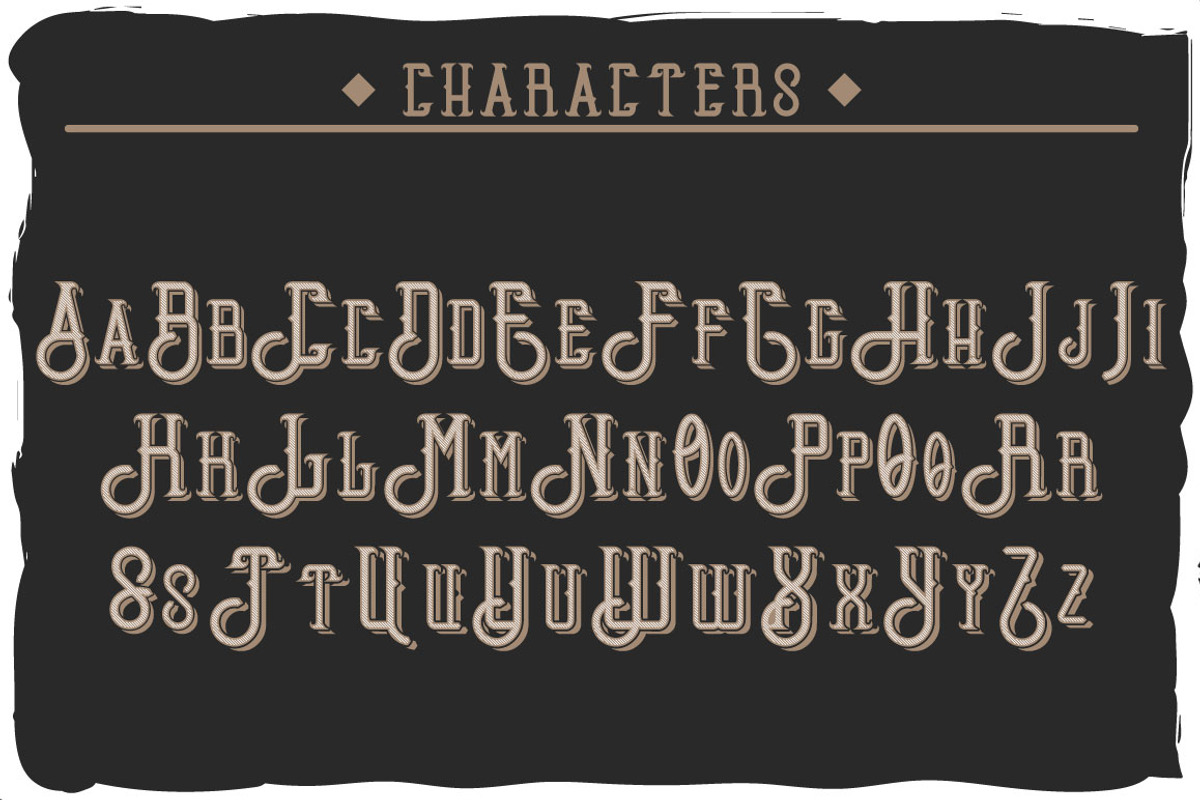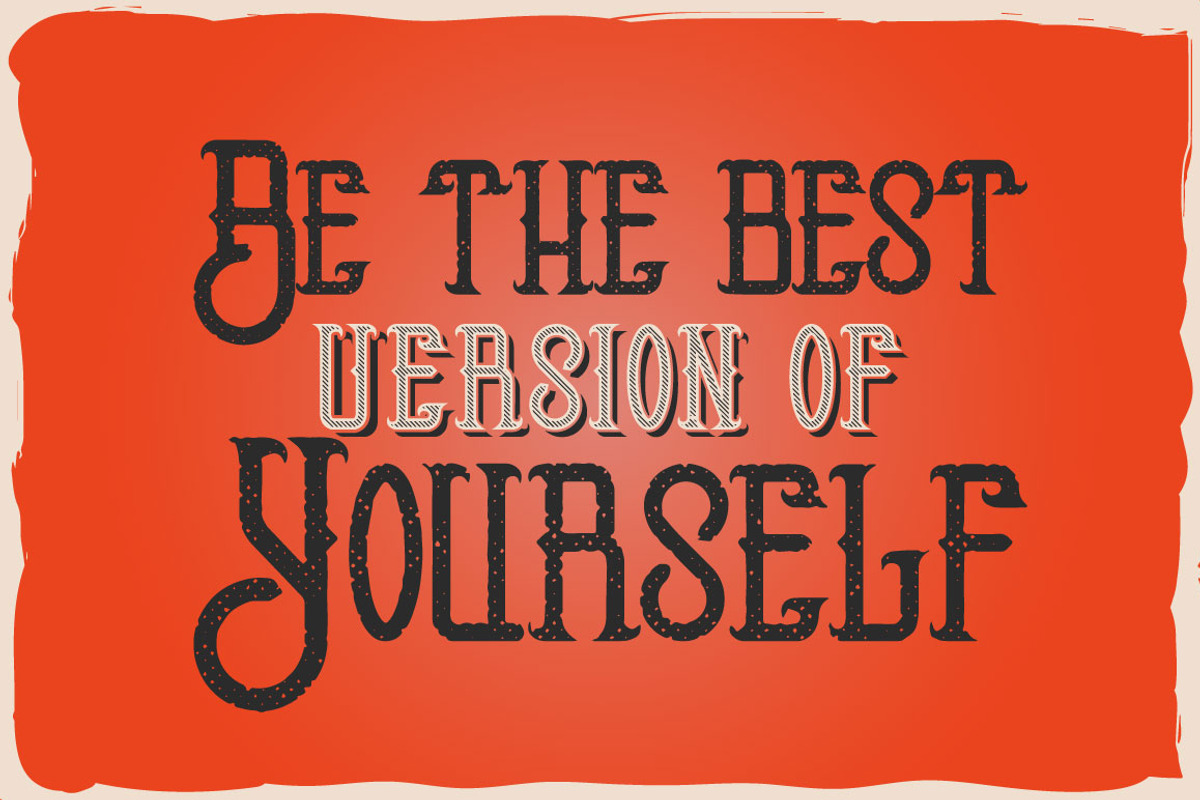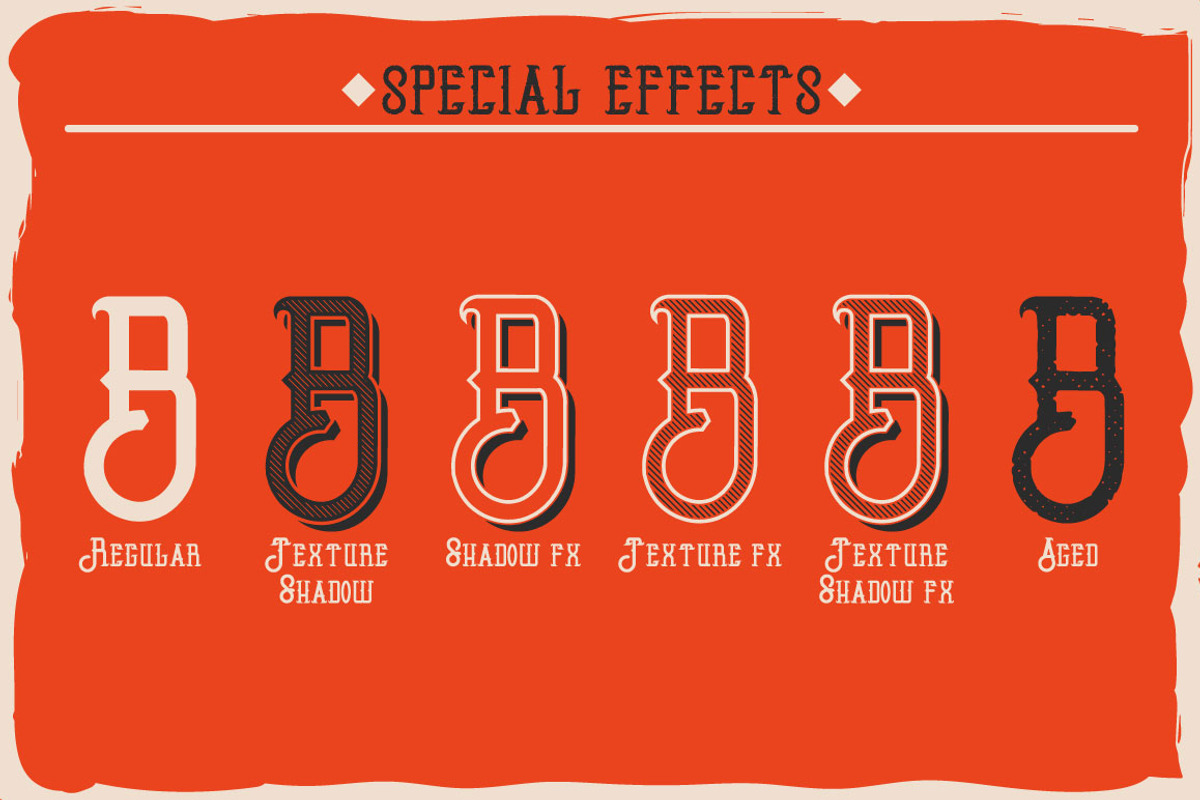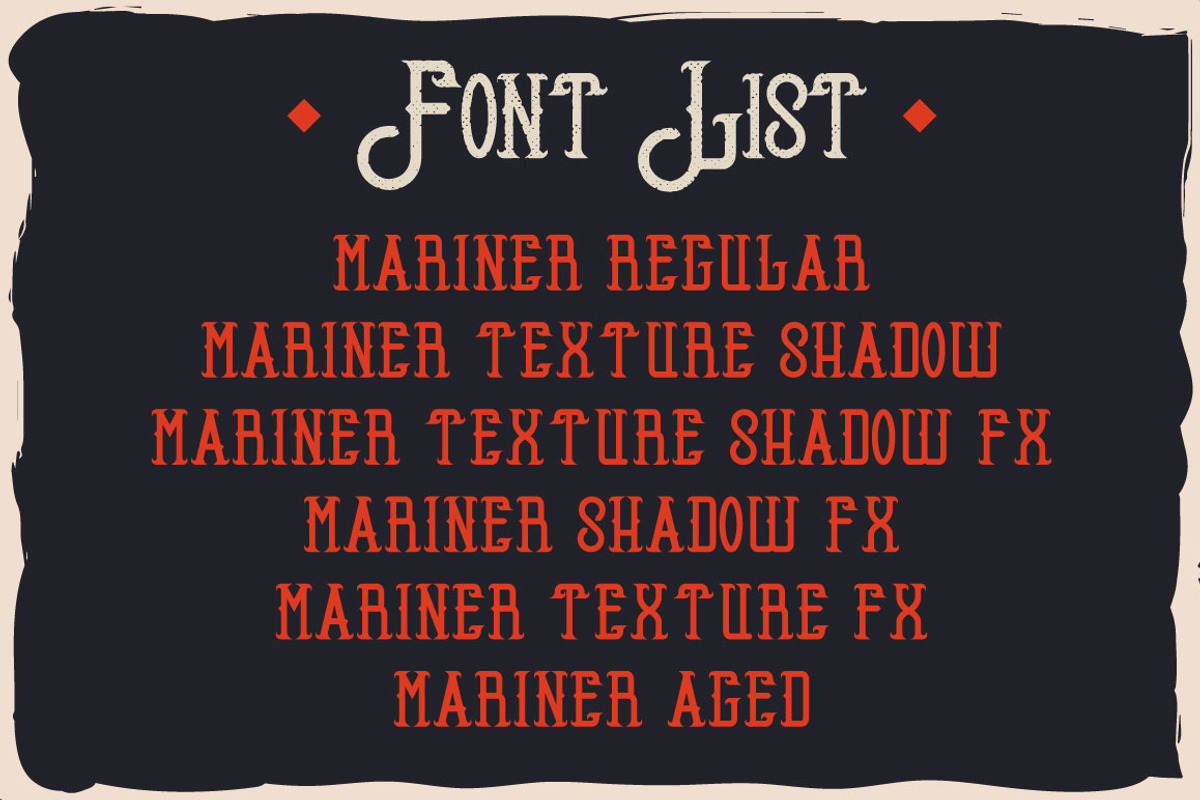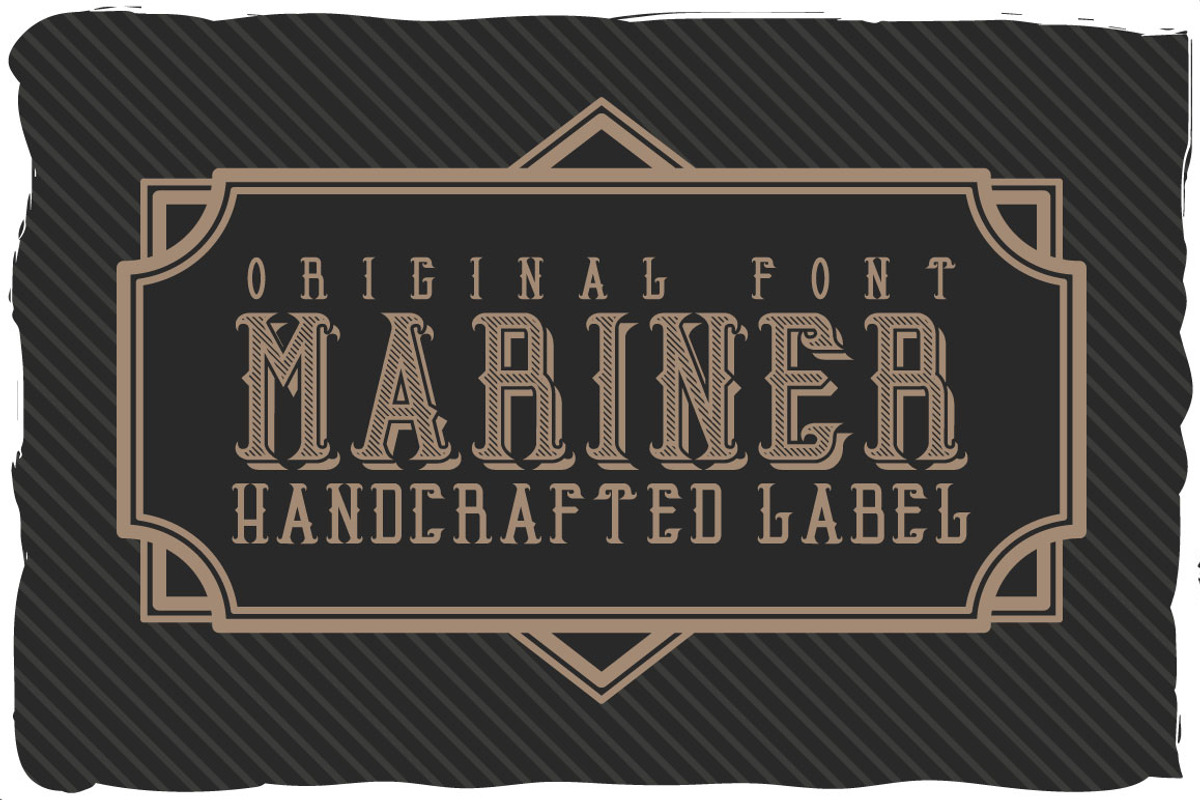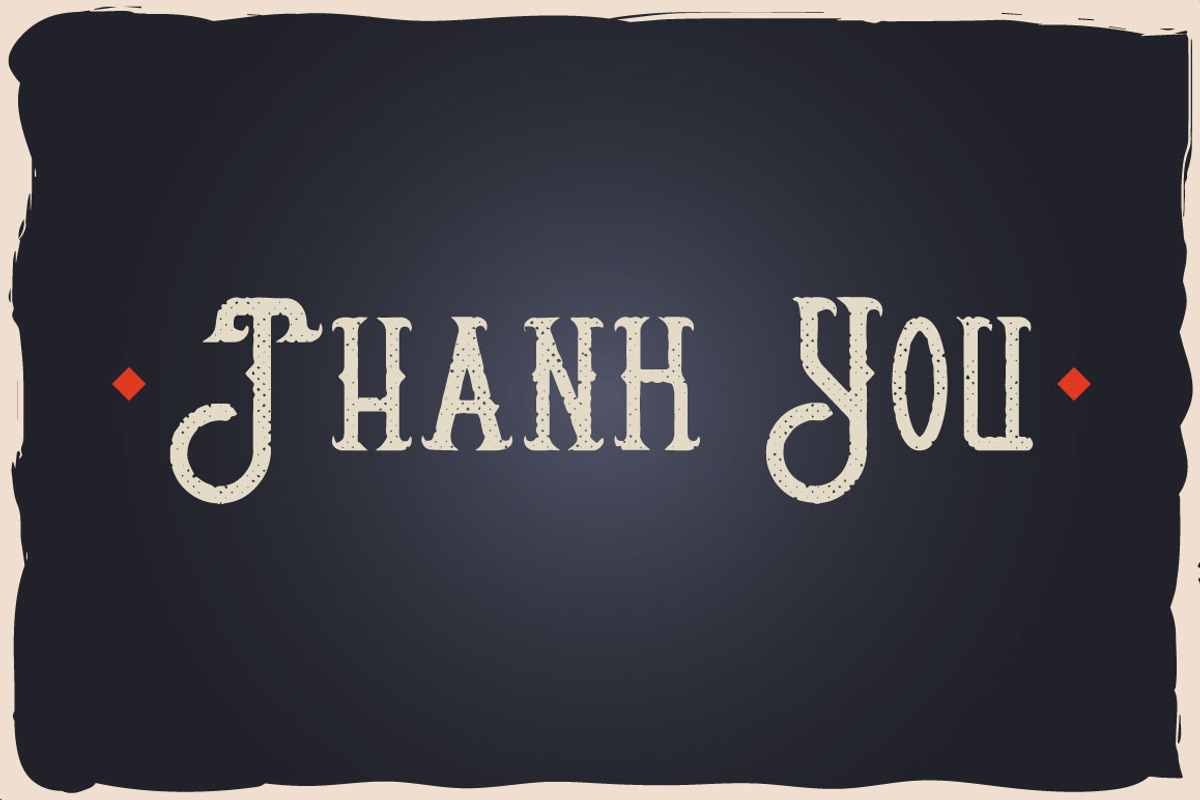
Mariner font + quotation
Introducing a vintage label typeface called "Mariner" + bonus quotation. It's made in strong and vintage label style. Typeface looks great on any label designs and t-shirts.
5 fonts in complect with special effects + aged version
You can mix color of base font, texture and shadow effect (look at 3rd screenshot)
bonus quotation on t-shirts and other stuff.